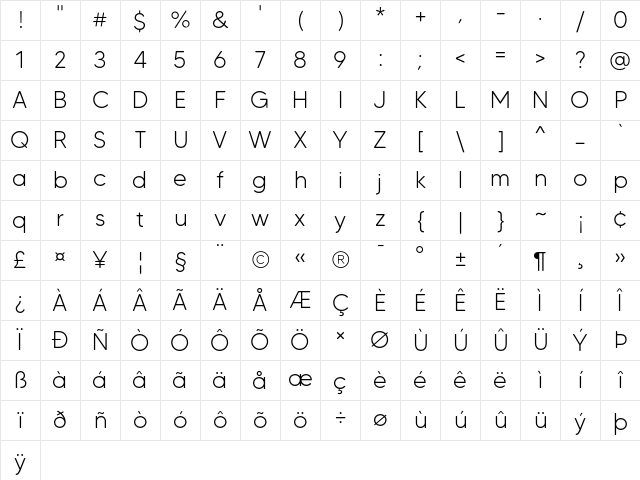
MADE Tommy Soft Light Free Font
MADE Tommy Soft Light
Foundry: MadeType
Designer: MadeType
Design Context for MADE Tommy Soft
MADE Tommy Soft is a composed and adaptable typeface that performs quietly and consistently across a wide range of design contexts. Its slender proportions lend an understated elegance to any composition.